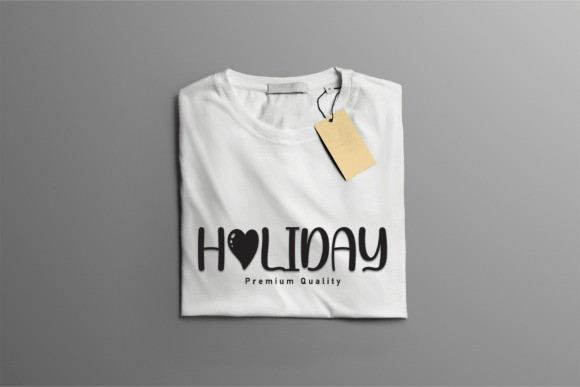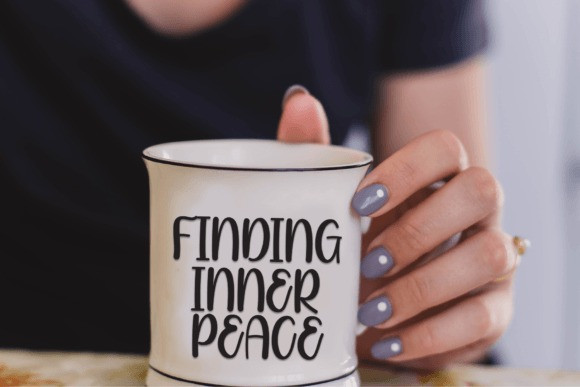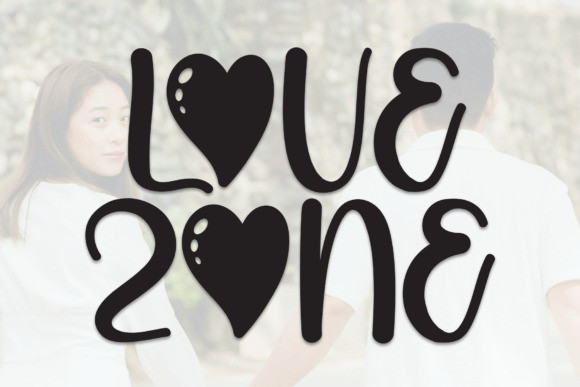
Love Zone Font
Love Zone Font – a delightful, endearing handwritten display masterpiece! The strokes of this whimsical font carry an air of sweet friendliness, an ideal choice to convey heartfelt sentiments. With its adorable allure, it brings a sprinkle of whimsy to wedding invitations and heartfelt cards. If your design yearns for vivacious charm, this playful font is not just an element, it’s a state of art that’ll infuse an exuberant touch into your creatives.